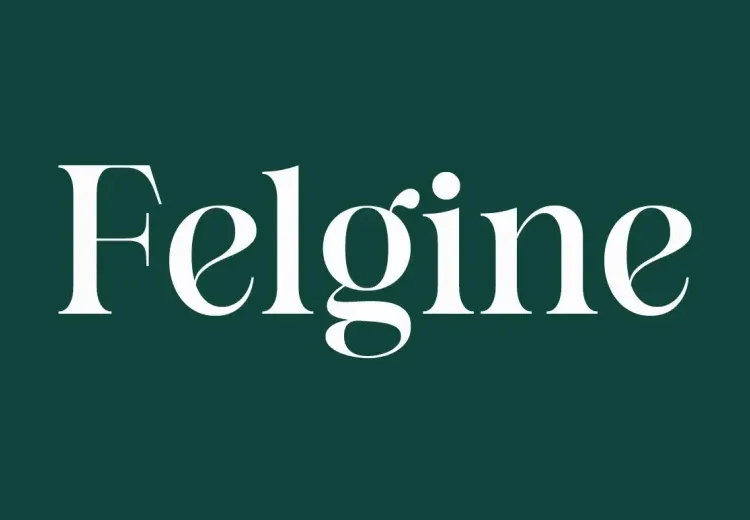
Felgine Font
Felgine is a display serif font designed with elegant contrast and distinctive ligatures. Its stylish and refined characteristics make it an excellent choice for fashion-related projects and sophisticated designs. Felgine is particularly suited for creating high-end logos, magazine titles, and other lifestyle-related graphics.
With its versatile ligatures and elegant design, Felgine offers numerous options for enhancing your text and visual presentations.